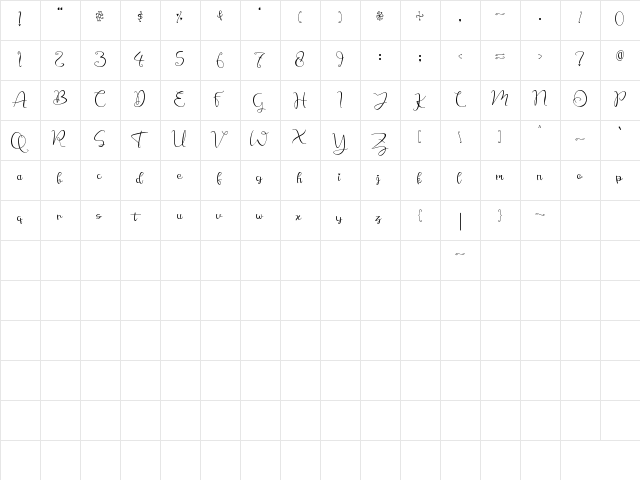
Christmas Winter Regular
Design Context for Christmas Winter Typeface
Christmas Winter is a composed and adaptable typeface that performs quietly and consistently across a wide range of design contexts.